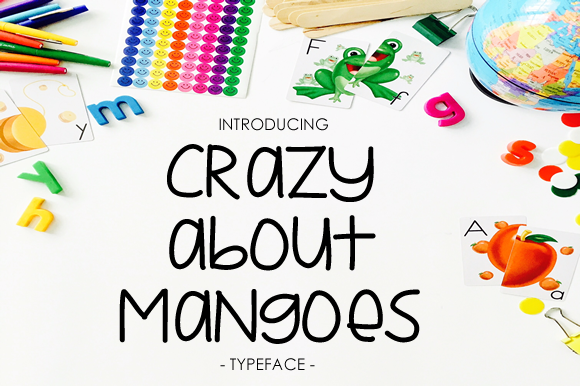
Welcome to the realm of visual intrigue, where typography transcends its traditional role and becomes a captivating element in your artistic arsenal. Enter Crazy About Mangoes, a sans serif font family that embodies bold creativity and refined elegance, poised to revolutionize your design ventures. With its unique character formations and snappy, sassy attitude, this font is not for the fainthearted. It's for those who crave a dash of eccentricity and a touch of daring in their artistic pursuits.
Crafted by the skilled hands of yh.seaofknowledge, Crazy About Mangoes possesses an innate ability to elevate any project to new heights of visual appeal. Its sharp edges and playful curves dance in harmony, creating a striking visual contrast that demands attention. Whether you're a seasoned designer seeking a refreshing addition to your font library or a budding artist exploring the boundaries of self-expression, Crazy About Mangoes is your gateway to typographic brilliance.
Embrace the freedom to express your creativity without limits. Let the bold strokes of this font infuse your designs with a sense of youthful exuberance and trendy appeal. Ignite a spark of intrigue with headlines that leap off the page, capturing the imagination of your audience. Craft logos that command attention, leaving an indelible mark on the minds of your clients. Unleash the power of Crazy About Mangoes in your branding materials, social media posts, and digital marketing campaigns, ensuring your message resonates with clarity and distinction.
But Crazy About Mangoes is more than just a font; it's an experience. It's a journey into the realm of visual enchantment, where letters transform into vibrant brushstrokes, conveying emotions beyond words. Dive into the depths of creativity, where ordinary designs bloom into masterpieces, fueled by the sheer audacity of this remarkable font. Explore the boundless possibilities that await, as you unlock the true potential of your imagination.